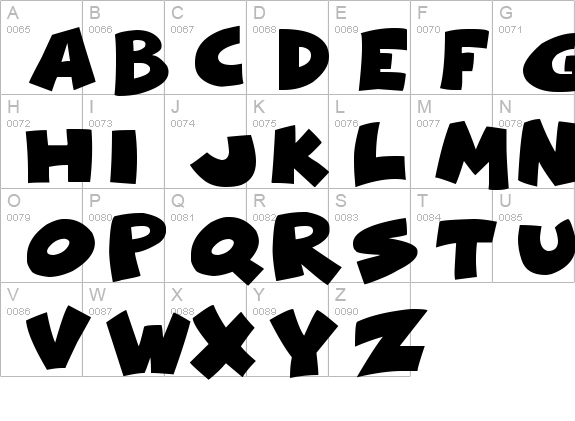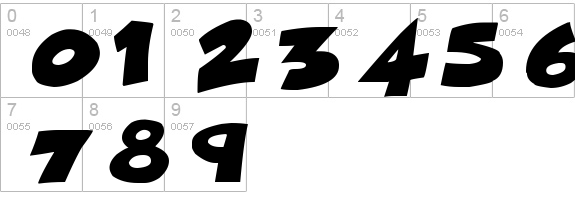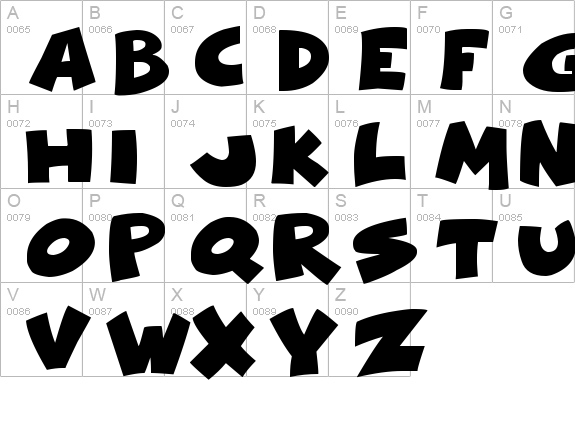
Comical Cartoon Font Details
Comical Cartoon is a donationware font in the Fancy > Comic category, designed by Darrell Flood. It has been downloaded 112 times and is available for Windows, Mac and Linux.
The Comical Cartoon font is a fun and whimsical typeface perfect for adding a touch of humor to your designs. With its playful and quirky style, this font is sure to bring a smile to your audience's face. Whether you're creating posters, greeting cards, or social media graphics, the Comical Cartoon font will add a lighthearted touch to your projects.